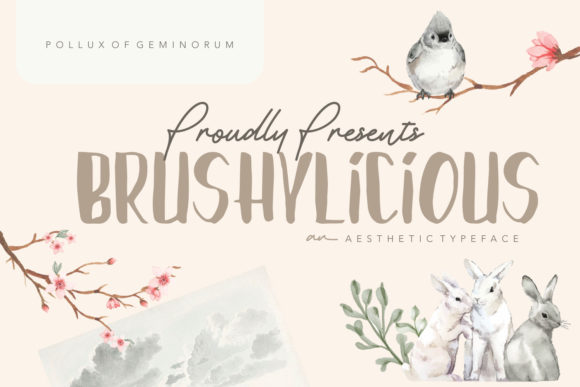
Introducing Brushylicious Font: The Ultimate Hand-Painted Typeface for Creative Projects
Are you a designer, crafty DIY enthusiast, or a business owner looking for a unique and authentic font to elevate your brand or project? Look no further than Brushylicious Font! This stunning hand-painted typeface is perfect for adding a personal touch to various creative endeavors, from headings and posters to logos, invitations, and more.
What is Brushylicious Font?
Brushylicious is an authentic hand-painted typeface, carefully crafted to bring a touch of elegance and whimsy to your designs. Its unique, hand-painted style gives it a distinctive and eye-catching appeal that sets it apart from more traditional fonts. Whether you’re looking to create a bold statement or a subtle impression, Brushylicious Font is the perfect choice.
Endless Possibilities with Brushylicious Font
One of the best things about Brushylicious Font is its incredible versatility. This amazing typeface can be used for a wide range of purposes, including:
- Headings and titles: Add a touch of sophistication to your headings and titles with Brushylicious Font’s elegant, hand-painted style.
- Posters and flyers: Create eye-catching posters and flyers that grab attention and leave a lasting impression.
- Logos and branding: Use Brushylicious Font to create a unique and memorable logo that reflects your brand’s personality.
- Invitations and greeting cards: Add a personal touch to your invitations and greeting cards with Brushylicious Font’s warm and inviting style.
- T-shirts and apparel: Create custom t-shirts, hoodies, and other apparel that stands out with Brushylicious Font.
- Letterheads and signage: Elevate your business’s professional image with Brushylicious Font’s elegant style.
- News and magazine headlines: Add a touch of flair to your headlines and article titles with Brushylicious Font.
- Badges and labels: Create custom badges and labels that make a statement with Brushylicious Font.
Why Choose Brushylicious Font?
So, what sets Brushylicious Font apart from other typefaces? Here are just a few reasons why designers and crafters love Brushylicious:
- Unique and authentic: Brushylicious Font is a one-of-a-kind, hand-painted typeface that adds a touch of personality to your designs.
- High-quality: With its clear and crisp lines, Brushylicious Font is perfect for both print and digital applications.
- Versatile: As mentioned earlier, Brushylicious Font can be used for a wide range of creative projects.
Tips and Inspiration for Using Brushylicious Font
To get the most out of Brushylicious Font, here are a few tips and inspiration ideas:
- Experiment with colors: Brushylicious Font looks amazing in a variety of colors, so don’t be afraid to try out different hues and combinations.
- Mix and match: Combine Brushylicious Font with other fonts and design elements to create a unique look that reflects your brand or project’s personality.
- Pay attention to spacing: Make sure to adjust the spacing between letters and words to create a clean and visually appealing design.
For inspiration, take a look at some of the amazing projects created with Brushylicious Font, from elegant wedding invitations to bold and colorful posters. With a little creativity, the possibilities are endless!
| Font Name | Brushylicious Font |
| Author | Pollux of Geminorum |
In conclusion, Brushylicious Font is an incredible hand-painted typeface that offers a world of creative possibilities. Whether you’re a designer, crafty DIY enthusiast, or business owner, Brushylicious Font is the perfect choice for adding a personal touch to your projects. With its unique style, versatility, and ease of use, Brushylicious Font is sure to become a favorite in your design toolkit.